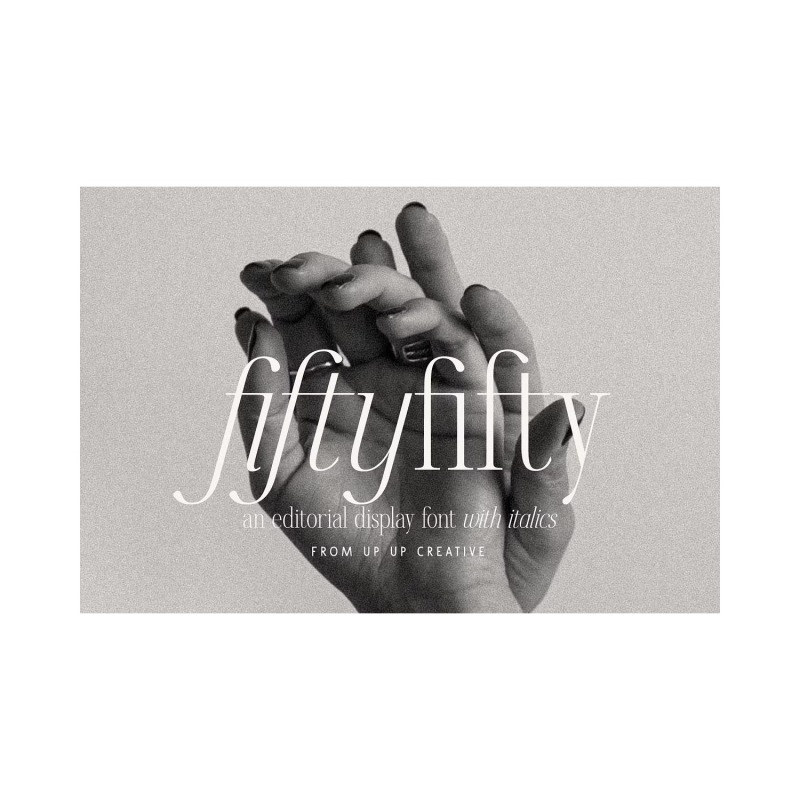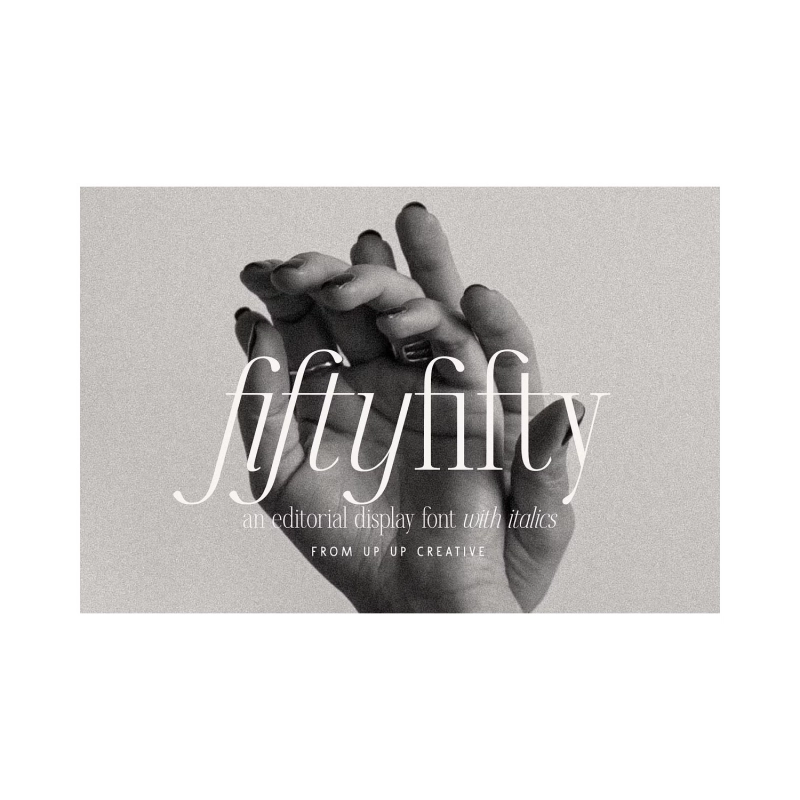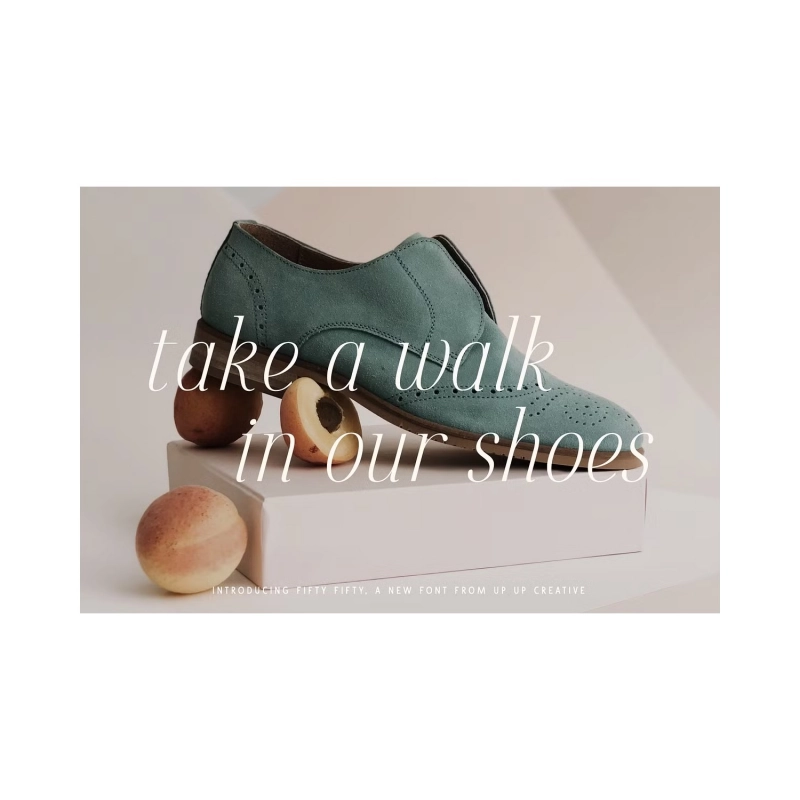
Fifty Fifty Serif Font with Italics
Fifty Fifty is an editorial serif font (regular and italic) with smooth curves and more than 100 ligatures. It’s gorgeous in all caps, but the lowercase letters can really hold their own. Fifty Fifty is perfect for headlines, editorial design, monograms, branding, logos, poster design, and more.
Fifty Fifty includes approximately 700 glyphs and a whopping 115 standard and discretionary ligatures. Additional OpenType features include character variants, stylistic sets, and multilingual support (including multiple currency symbols).